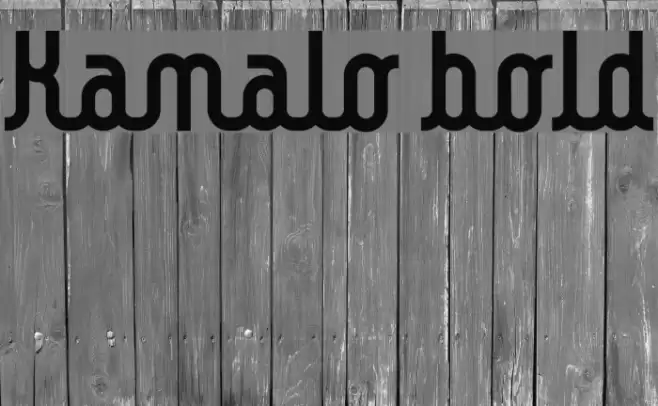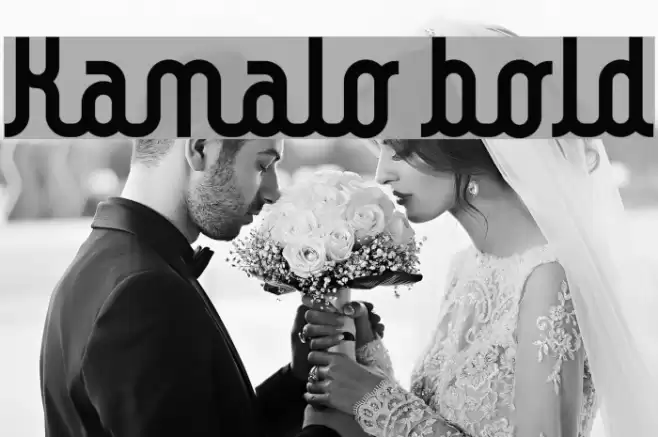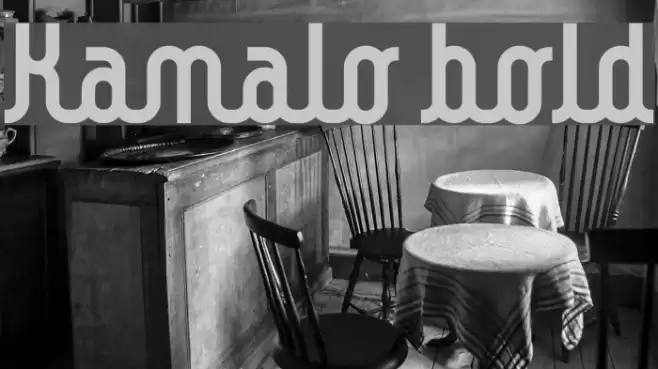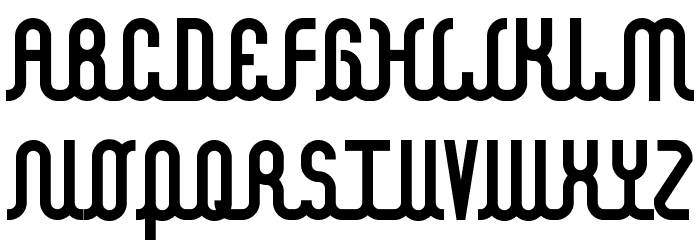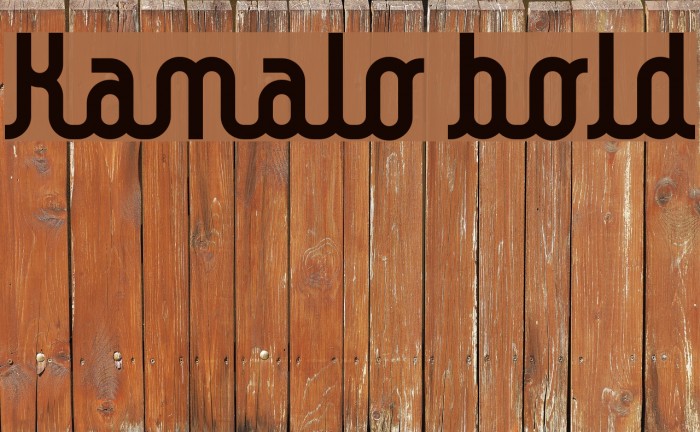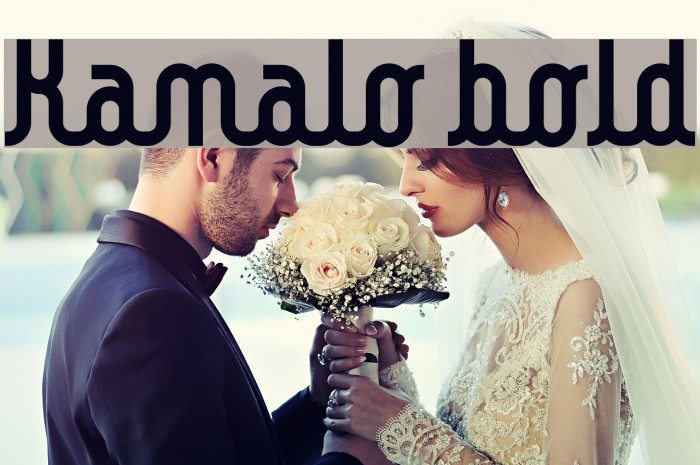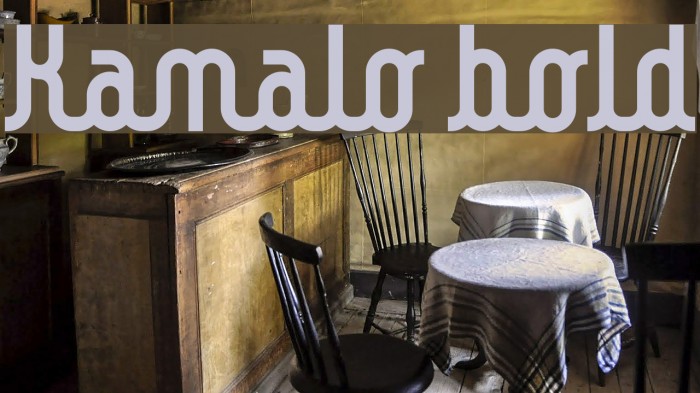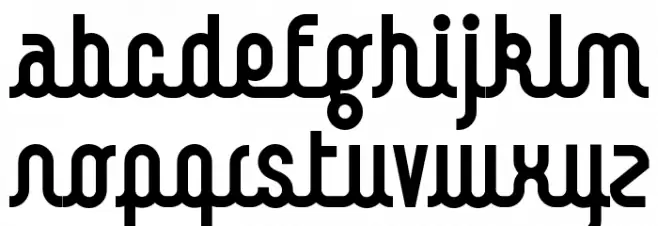
Kamalo bold Font
Kamalo bold Description
This font features a bold, modern design with a unique, continuous line style that creates a sense of flow and connectivity between characters. The uppercase and lowercase letters maintain a consistent height, giving the font a uniform appearance. The rounded edges and smooth curves add a touch of softness, while the bold weight ensures strong visibility and impact. The font's geometric structure and rhythmic pattern make it suitable for contemporary and creative projects, offering a distinctive look that stands out.
A bold, modern font with continuous lines and geometric structure from Uncategorized fonts.
- Proposed Projects: Ideal for branding, logos, posters, and modern digital designs.